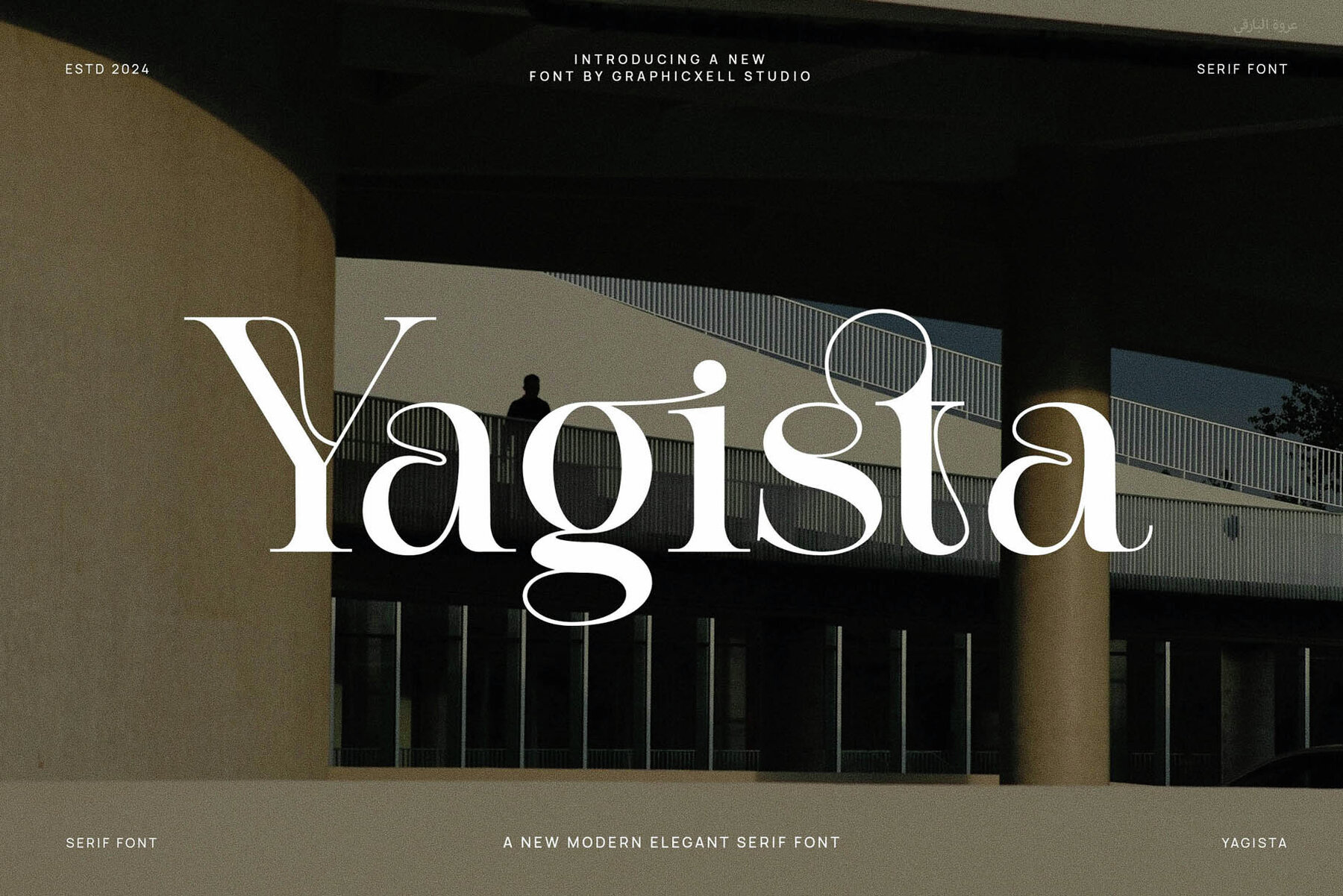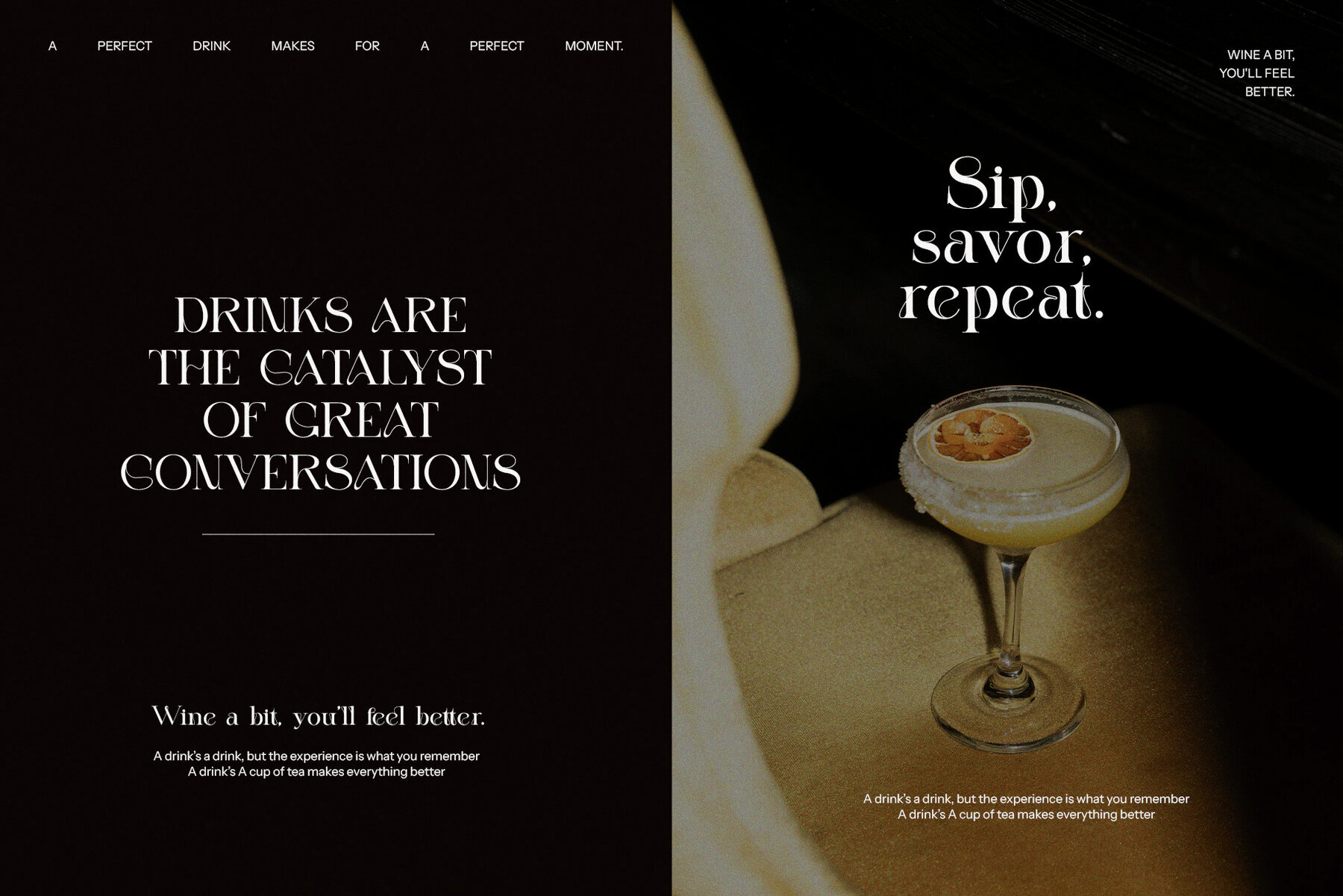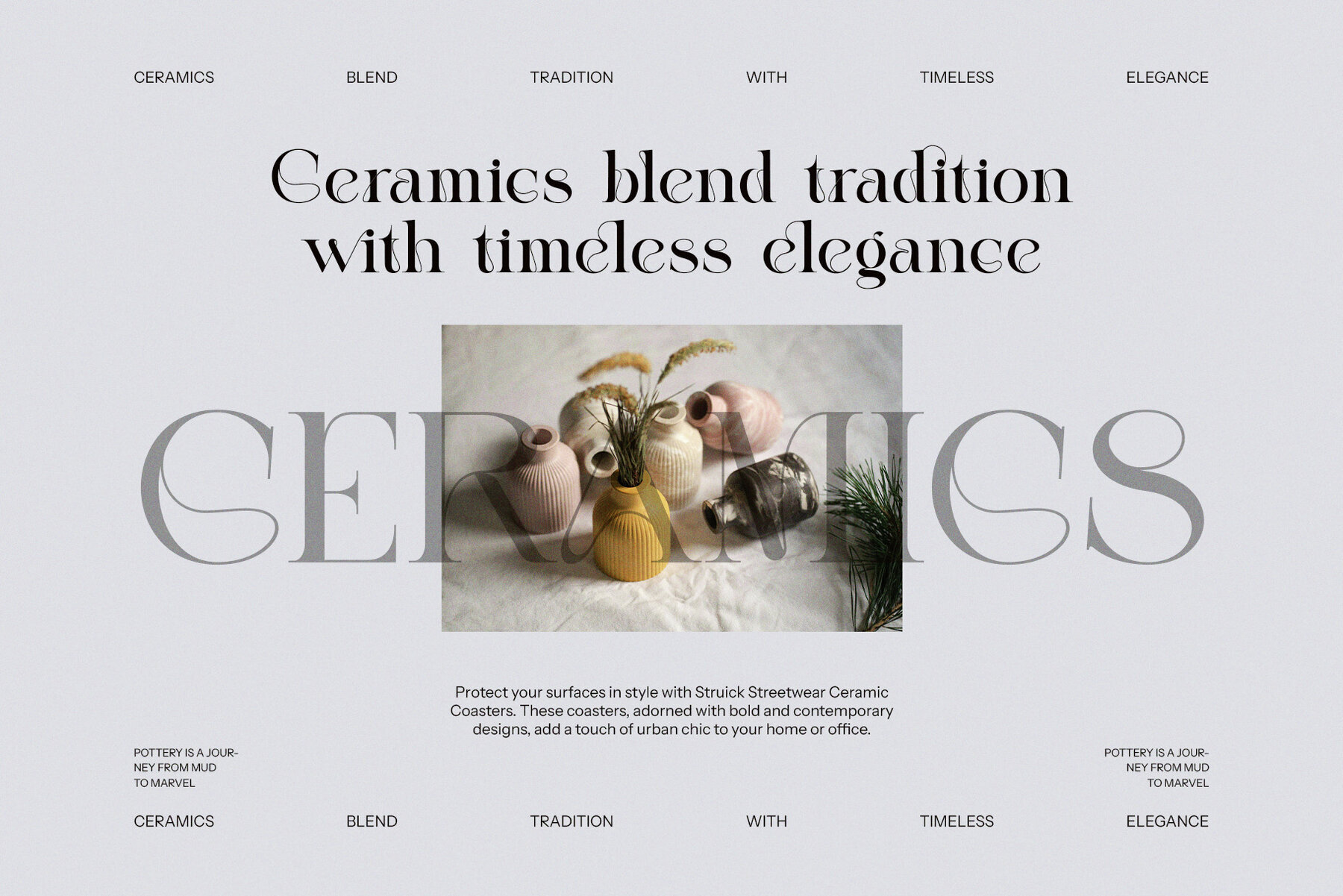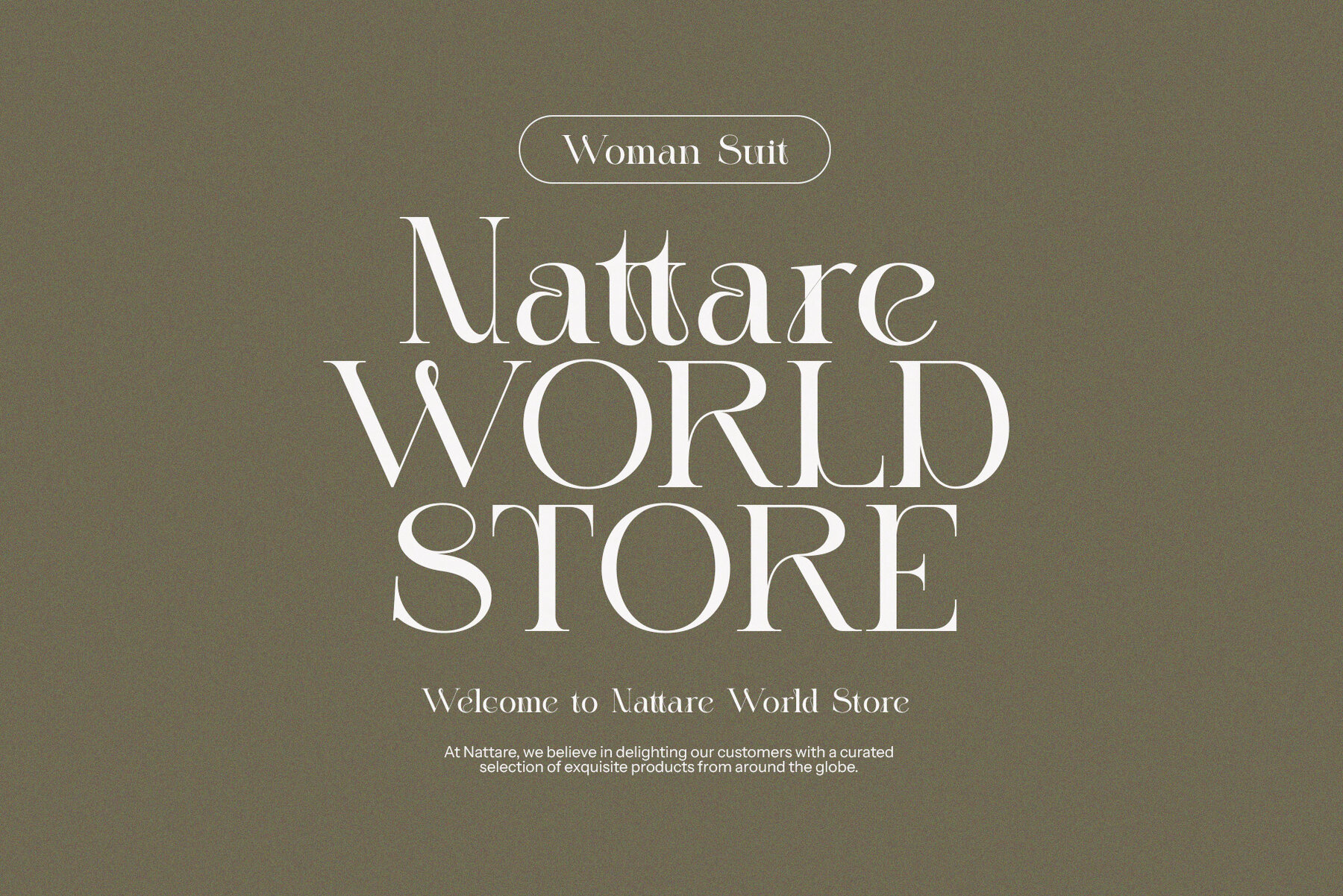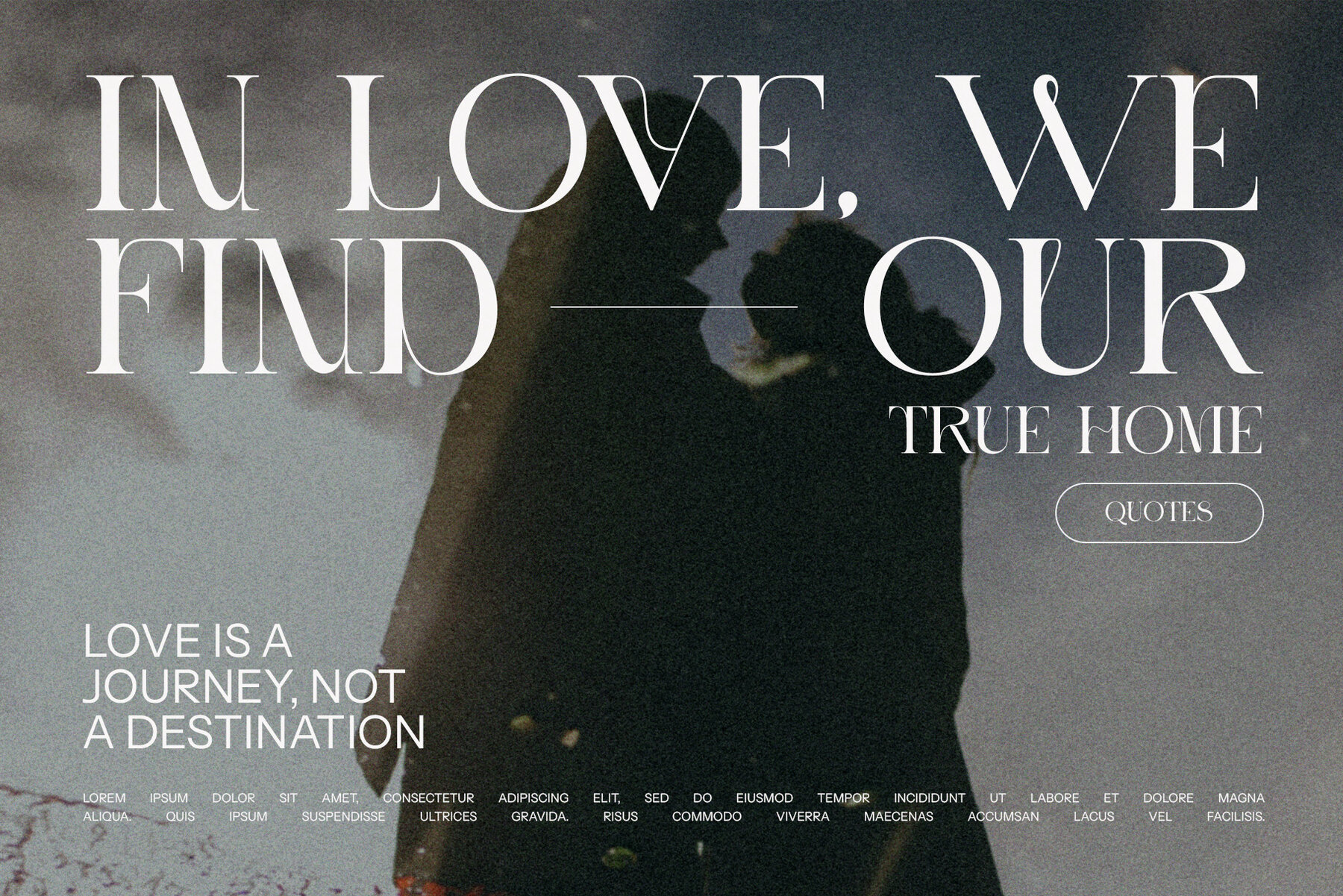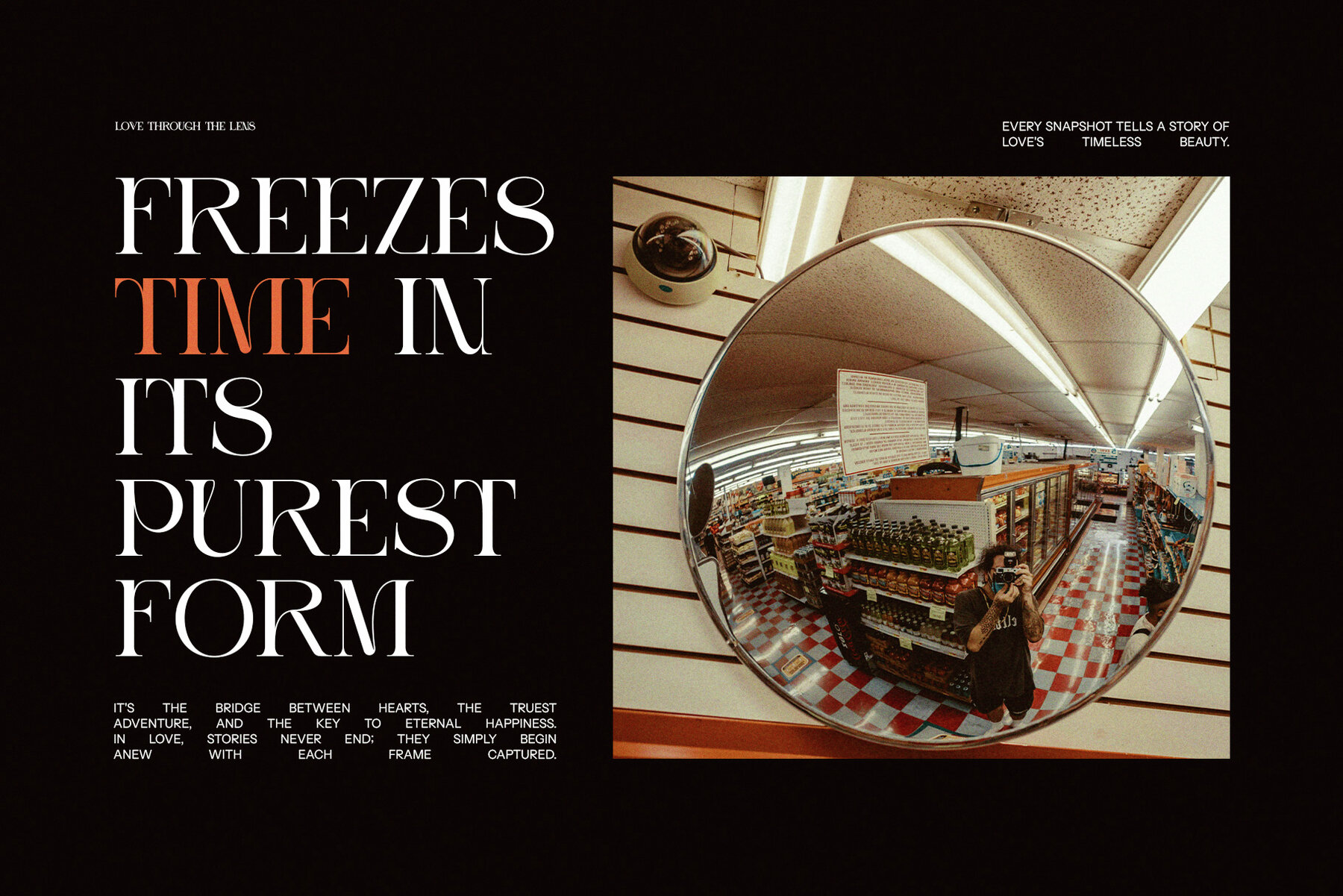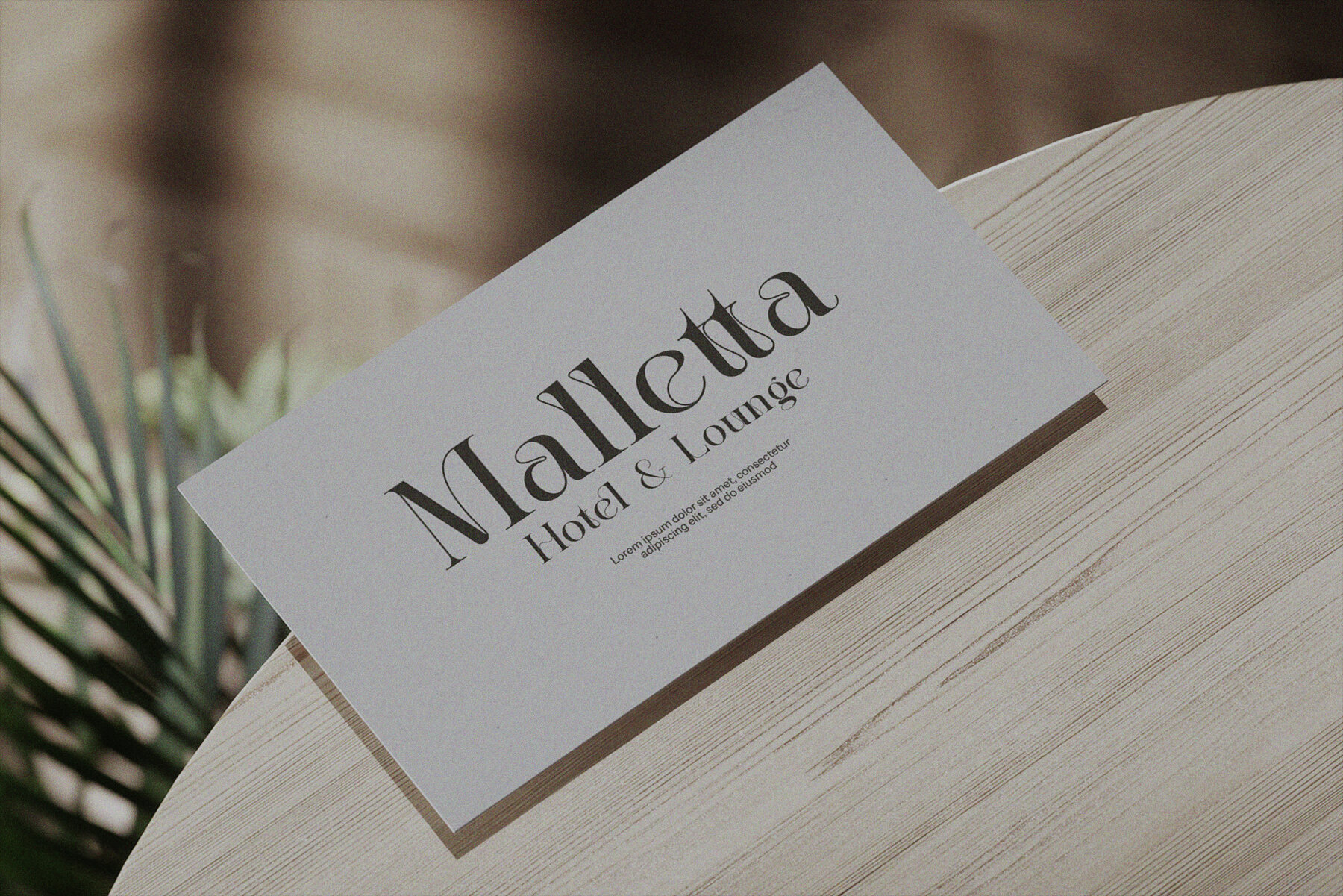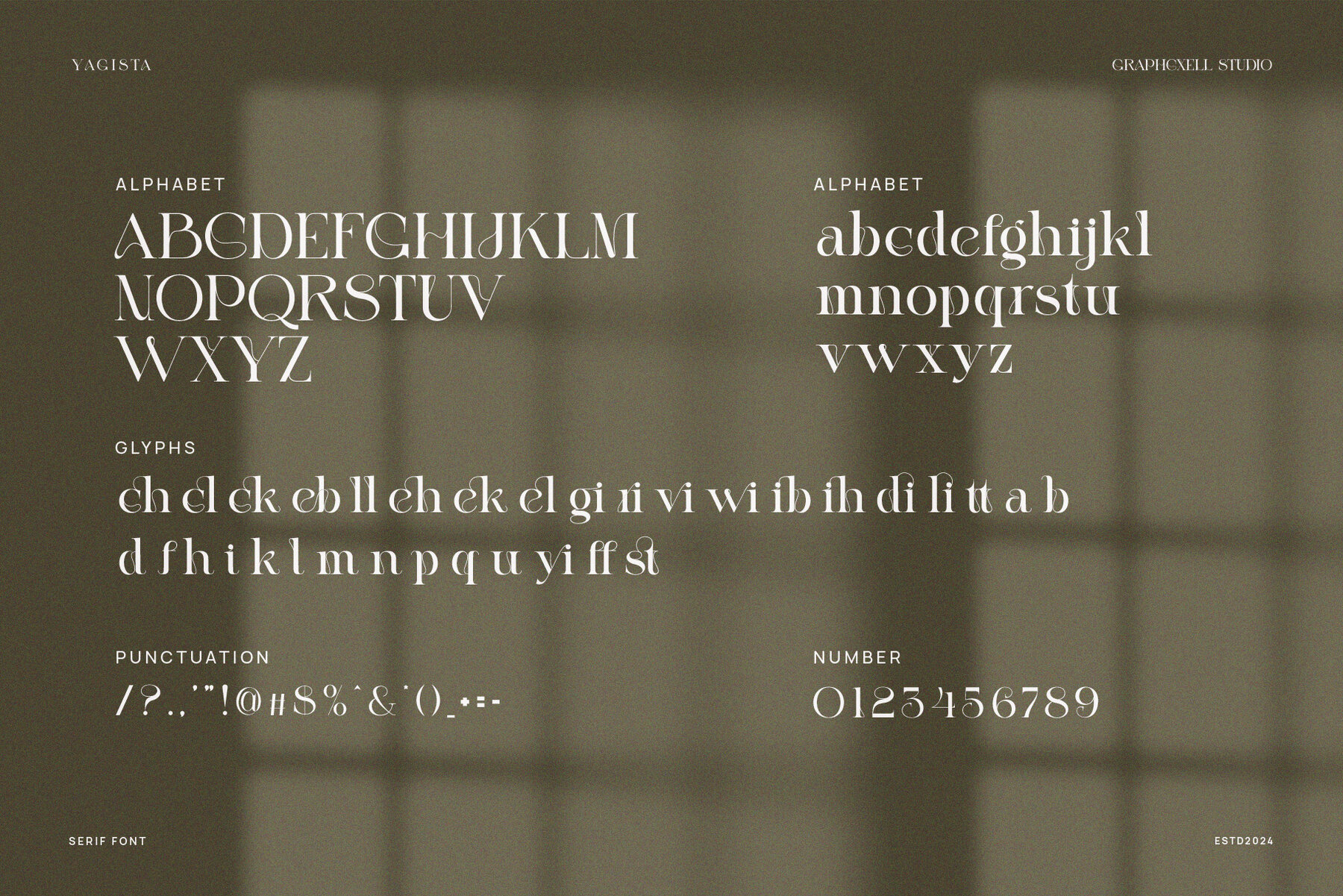
Yagista Font
Yagista
Yagista Elegant Serif is a meticulously crafted typeface that exudes sophistication and modern refinement, making it an ideal choice for high-end branding and design projects. This elegant serif font merges classic elements with contemporary details, delivering a timeless luxury to any composition. With its graceful curves, sharp serifs, and balanced structure, Yagista offers exquisite ligatures and alternates that allow for creation of distinctive and stylish typography.
Perfect for premium logos, editorial layouts, fashion branding, or product packaging, Yagista provides a polished and professional aesthetic. Its versatility shines across applications ranging from chic boutique signage to sophisticated website headers and magazine spreads. The font's refined and bold aesthetic suits industries like upscale branding, wedding invitations, cosmetics, and fine dining establishments that require a touch of class.
Yagista's high-contrast strokes and harmonious letterforms enhance readability while maintaining an exclusive feel. Whether applied in minimalist designs for a modern touch or intricate compositions for dramatic effect, this typeface enriches visual storytelling with undeniable charm and timeless beauty.